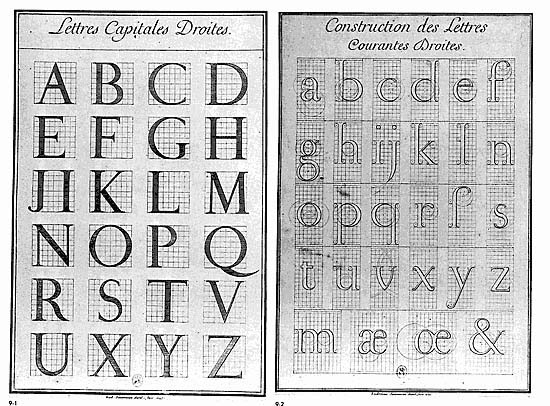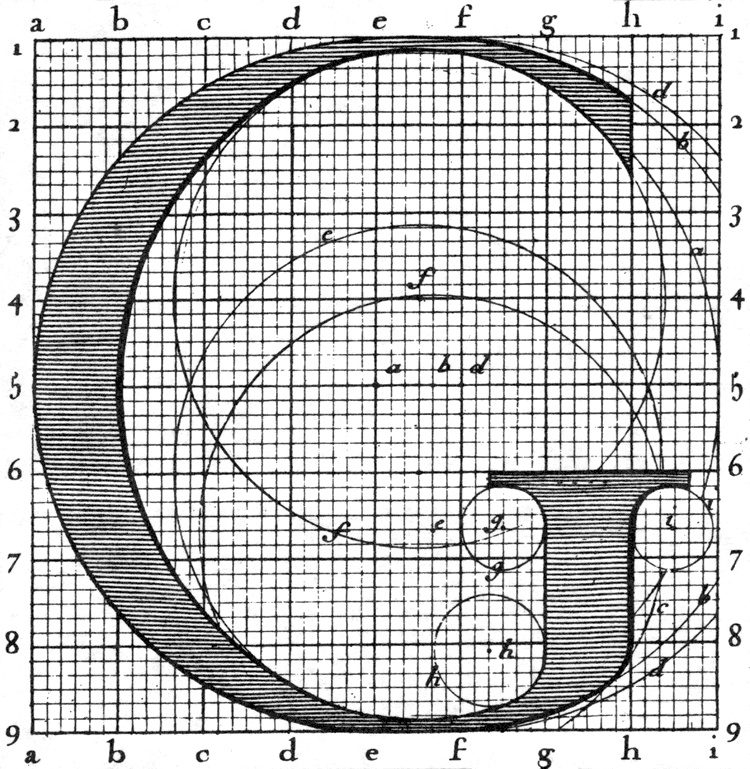
Romain du Roi, 1692
Overview of upper and lowercase letters of the Romain du Roi typeface.
The Romain du Roi (French for “King’s roman”) was a typeface developed in France beginning in 1692. The name refers to Louis XIV who commissioned the design of the new typeface for use by the Royal Print Office.
The Romain du Roi stands as a landmark of typography in the Age of Enlightenment. The conception of the letterforms reflects a difference in attitude from the prevailing roman typefaces before it. Whereas previous roman typefaces developed naturally over time, evolving in the hands of punch cutters from the typefaces of the fifteenth century, the Romain du Roi was the result of rational design: the letterforms were mapped on grids before being cut into metal.
The Romain du Roi was not the first “constructed alphabet”. Felice Feliciano was the first to recreate geometrically the alphabet of roman inscriptions, and published it in 1463 as Alphabetum Romanum Codex Vaticanus 6852. The Romain du Roi, however, because of its allegiance to the grid, shows a distinct shift in style, with an increased emphasis on verticality and increased contrast between thick and thin elements, a style that influenced the Transitional typefaces of Pierre Simon Fournier and John Baskerville.
The letterforms were the work of the Royal Academy’s Bignon Commission as part of its investigation of French typography and printing for the compilation of the Description of the Arts and Trades of France. The capital letters were drawn on 8×8 grids, the lowercase letters on rectangular grids. The committee’s designs were engraved by Louis Simonneau. Punches for the metal type were cut by Philippe Grandjean, who took some liberty with his type, to moderate the cold geometry of the designs. The type was first used for Médailles sur les principaux événements du règne de Louis le Grand. → Wikipedia
Constructed letter G with grid in the background.